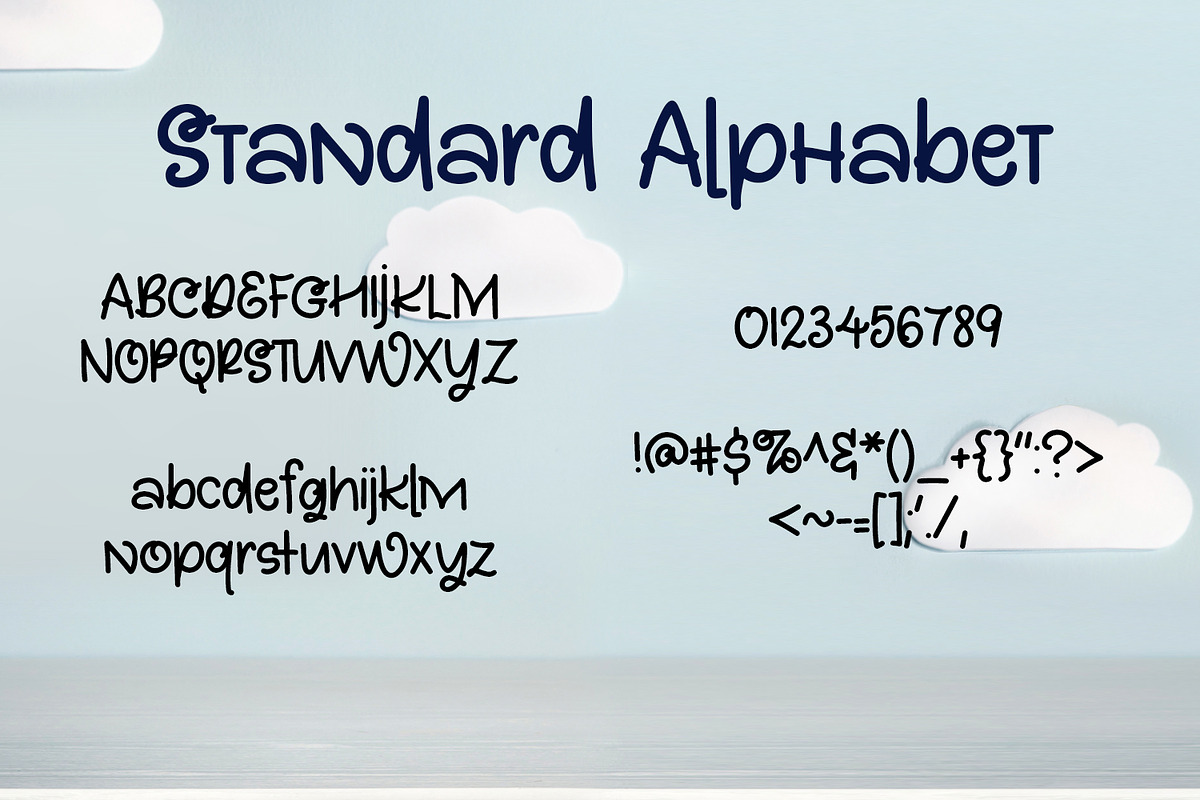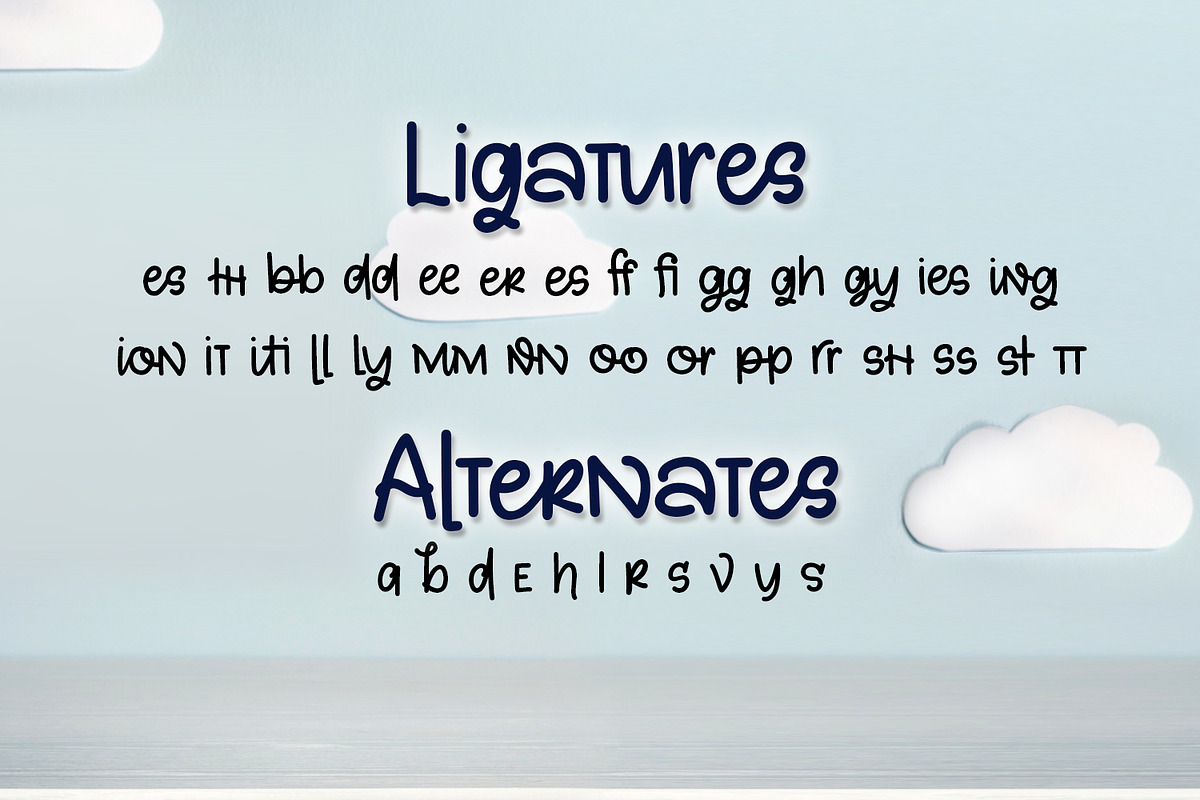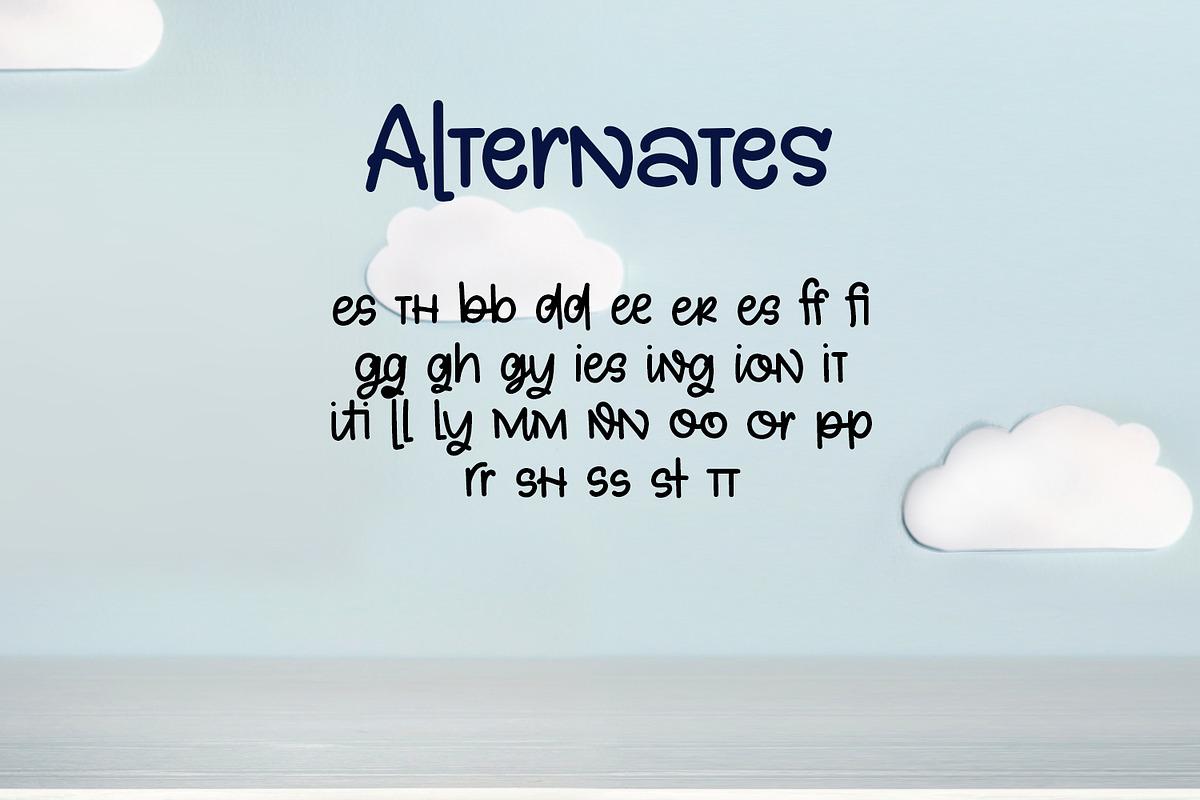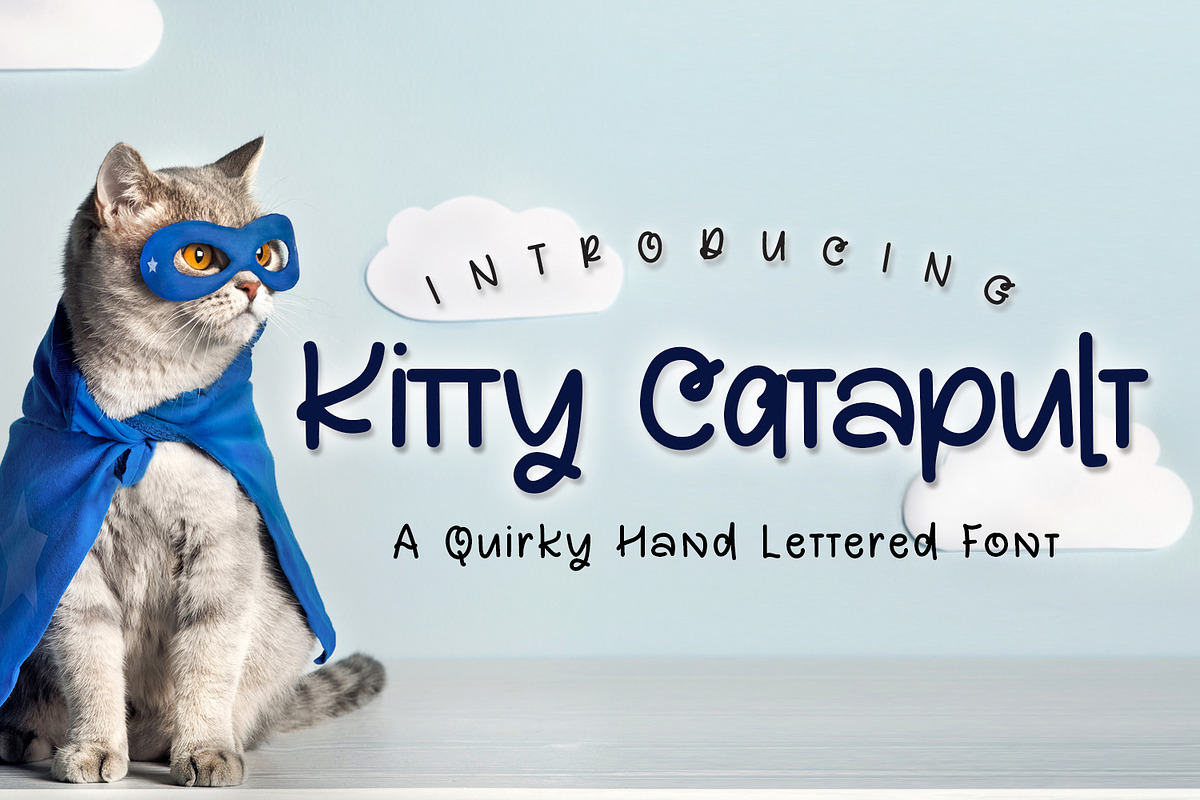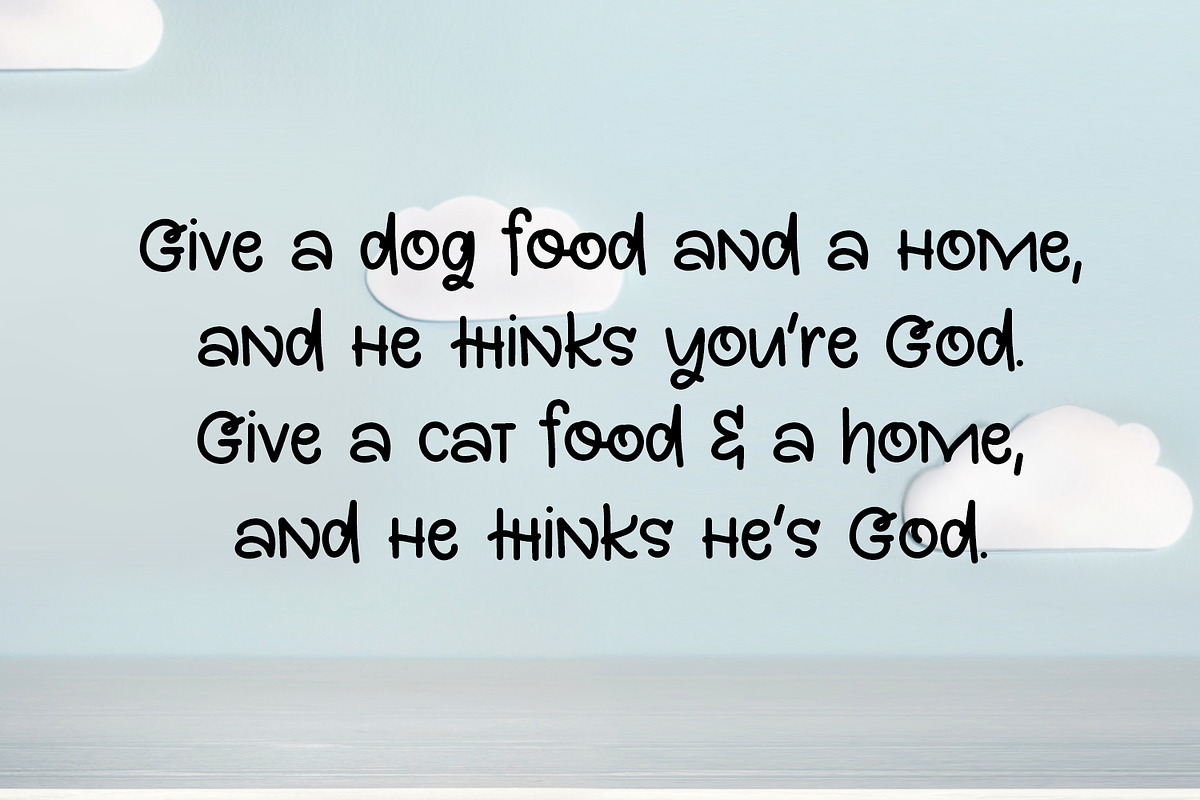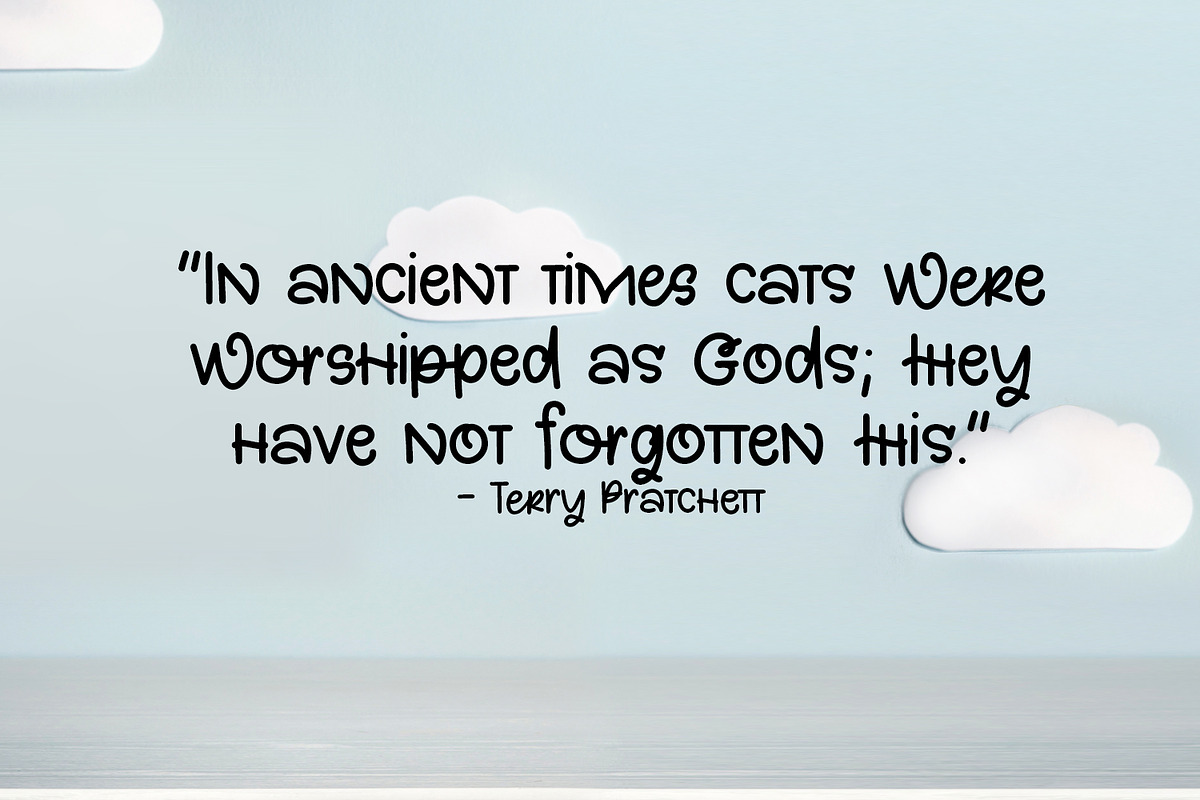
Kitty Catapult Font
A quirky hand lettered font with alternates!
Kitty Catapult Font by A Little Smidge fits naturally into Branding, posters, packaging, typography.